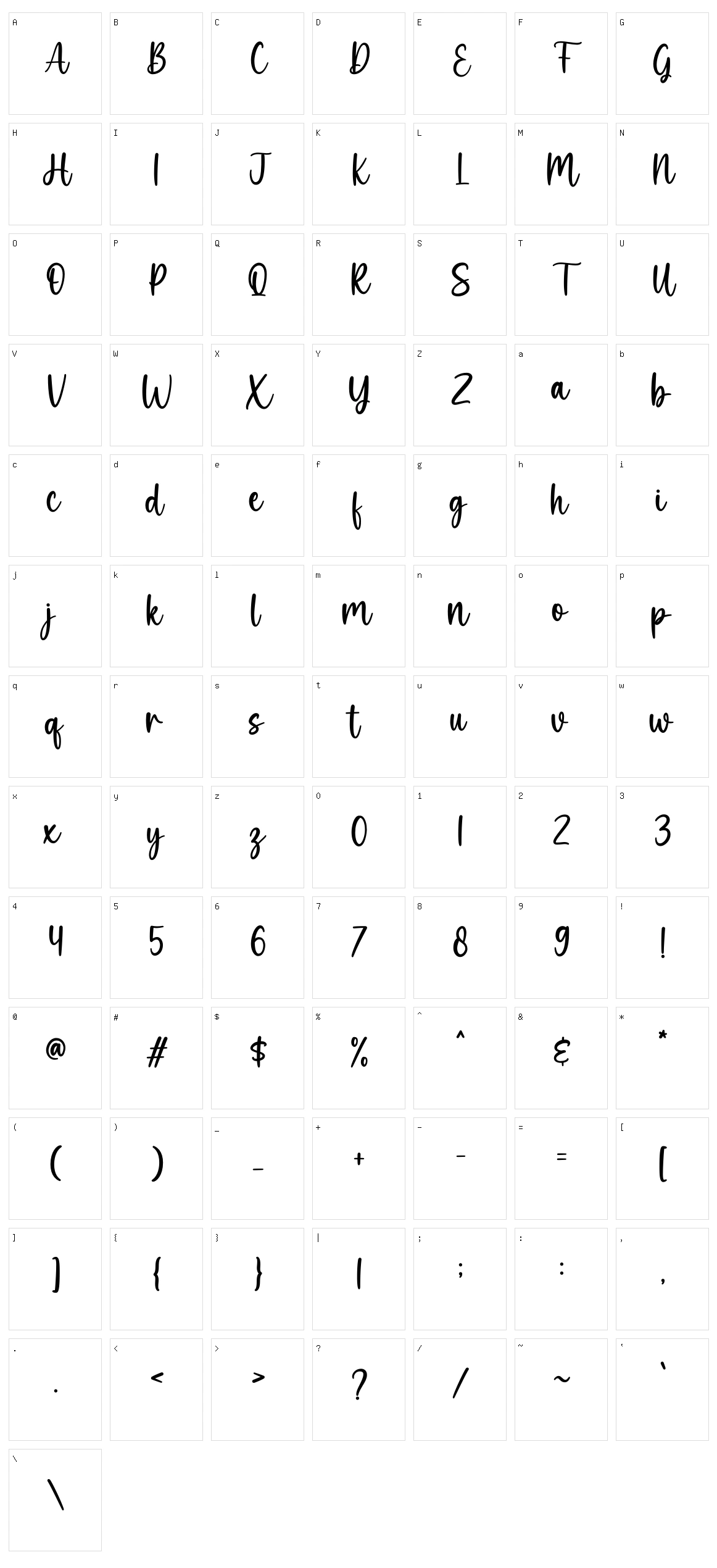
The free font Michele is carefully designed by Graphix Line Studio, showcasing a thoughtful balance of creativity and usability and falls under the Script font style. When you download the ZIP file, it contains only 127.31 KB of font files, making it lightweight and quick to download. Please review the license details below to understand permitted usage and distribution rights. If license information is not available, we recommend using this font for personal projects only or contacting the author directly for commercial usage permissions.